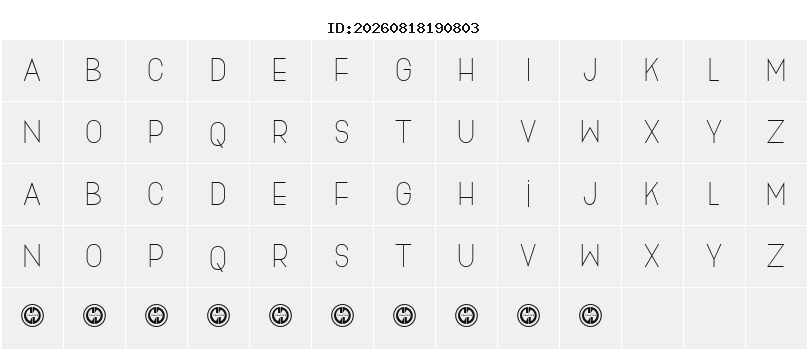
Skinny Jeans Preview
• Font Name: Skinny Jeans
• Designer: Chris Vile
• Manufacturer: Font Monger
• Description: Skinny Jeans Regular is a font by Font Monger, designed by Chris Vile in 2016.
Skinny Jeans.ttf is a modern, elegant sans-serif font designed for ultimate readability and visual harmony. Perfect for branding, headlines, web design, and print materials.